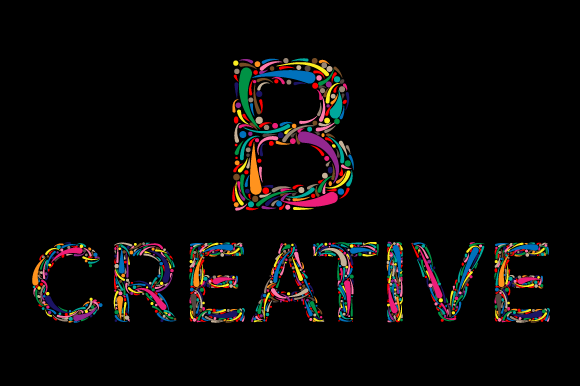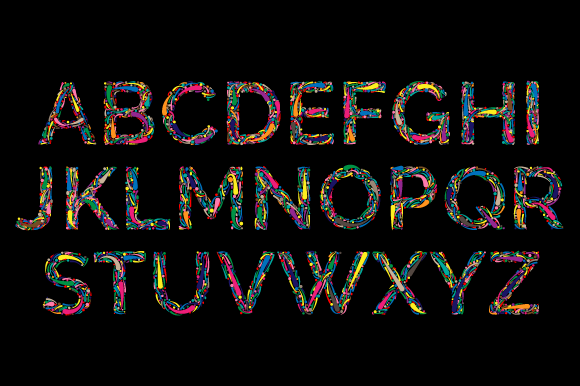
Sprunt Font
About Sprunt Font
Introducing Sprunt, a vibrant and playful color font that is sure to make your design ideas stand out! This unique typeface adds a touch of excitement and creativity to any project, giving your designs a lively and energetic edge.
With its Opentype-SVG format, Sprunt brings a burst of color and personality to your designs. Each character is meticulously crafted to capture the playful essence of the font, making it perfect for a wide range of creative projects. Whether you’re designing logos, posters, invitations, or social media graphics, Sprunt will add a vibrant and eye-catching element to your work.
Get ready to unleash your creativity with Sprunt and let your designs pop with its vibrant colors and playful style. Whether you’re creating for personal or professional projects, Sprunt will help you make a true standout statement.
Embrace the playful edge of Sprunt and let your imagination run wild. Explore its versatility and see how it transforms your design ideas into captivating visuals. With Sprunt, your designs will be bursting with energy and charm.